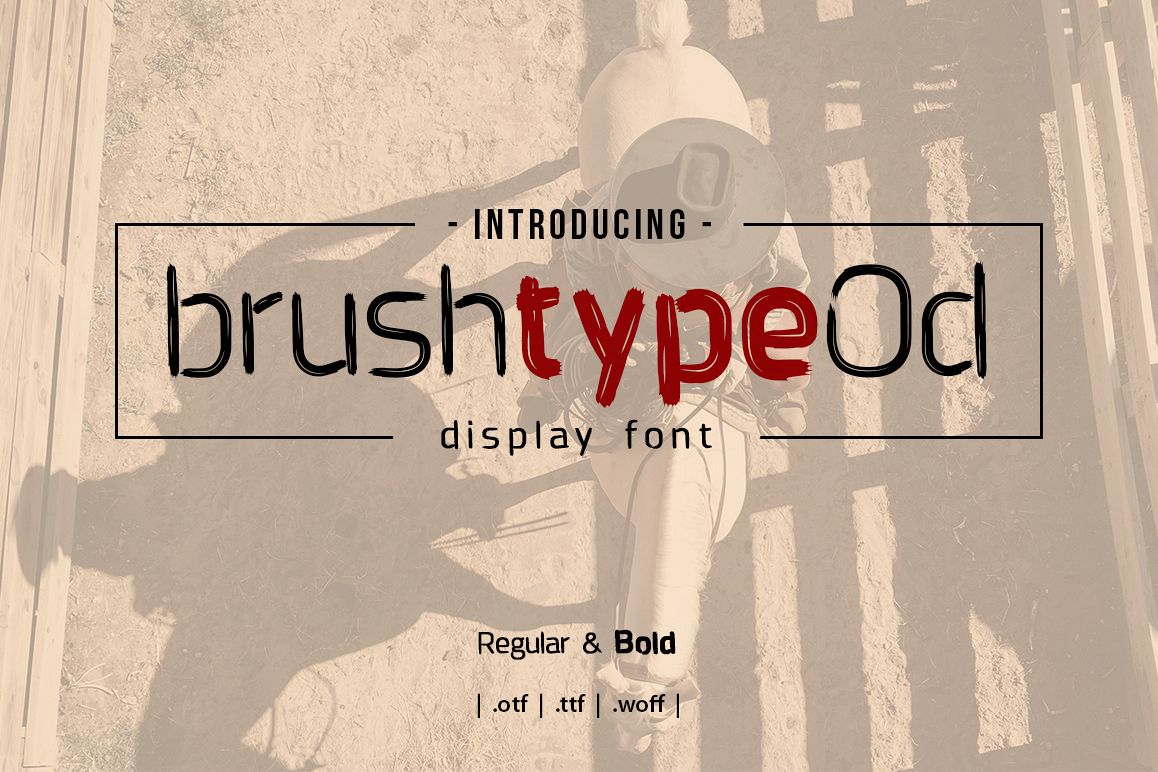
Brushtype Od Display Font
Brushtype Od font very suitable for poster, for logo, music cover, clothing, and many many cool design projects. Brushtype Od font is uppercase and lowercas. Numeric and standart font.